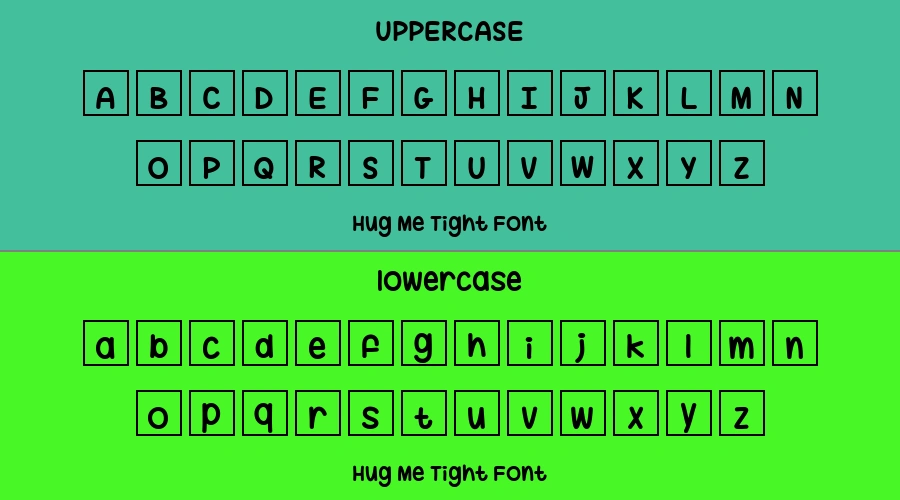
About Hug Me Tight Font
Hug Me Tight Font embodies typographic excellence through its masterful combination of rhythmic patterns and clarity. Created for digital interfaces, this typeface delivers exceptional authenticity and practical utility across all applications. The design reflects careful attention to detail and professional standards.
Advanced capabilities include distinctive convex bowls and versatile authentic details, giving designers creative control. When used in data tables, Hug Me Tight Font exhibits remarkable small cap rendering. The harmonious balance between ear formation and lifestyle connection sets this typeface apart.